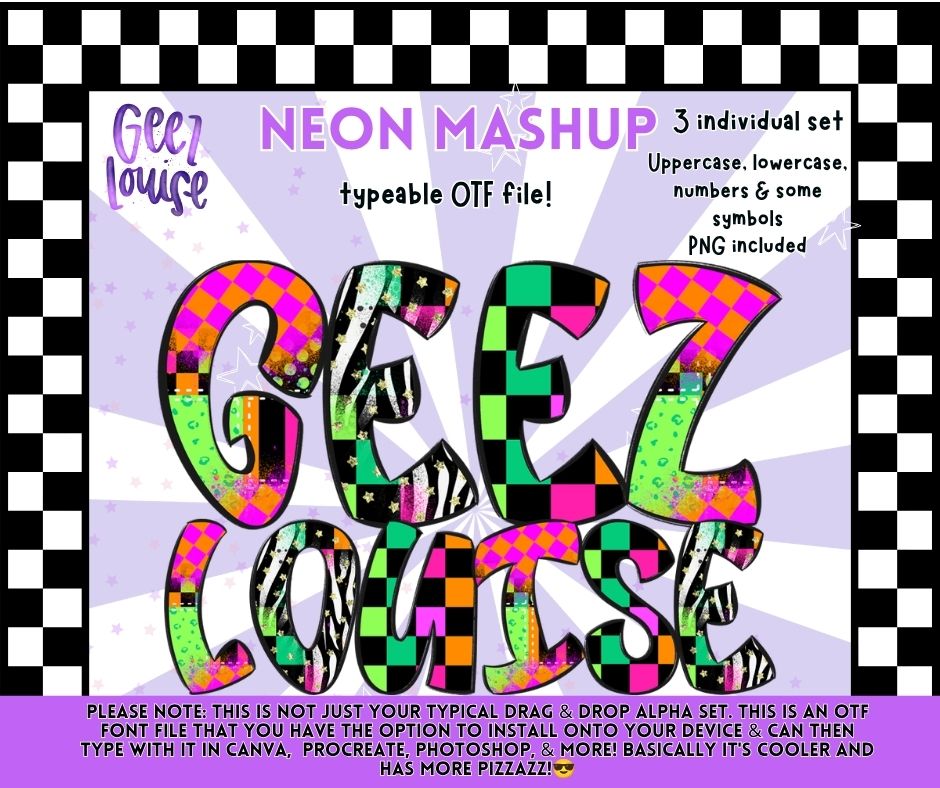
Neon Mashup Alpha Font Bundle OTF | Bright Pattern Alphabet PNG | Typeable Font Bundle
🌈⚡ Turn up the color with Neon Mashup Alpha Bundle! This bold collection includes 3 unique typeable alphabets featuring vibrant neon patterns, grunge textures, checkers, stripes, and playful patchwork designs. Perfect for retro graphics, boutique apparel, Y2K aesthetics, bold sublimation, and colorful creative projects.
Bundle Features:
🌈 Neon Checker Pattern
⚡ Grunge Neon Patchwork
🎨 Mixed Pattern Mashups